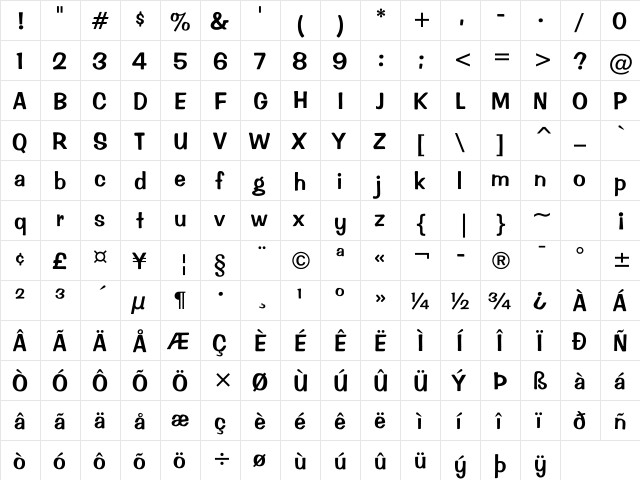
Lesressed Regular
Design Context for Lesressed Typeface
Lesressed takes a measured approach to typography — its balanced proportions and neutral character make it a reliable workhorse for both digital and print work.